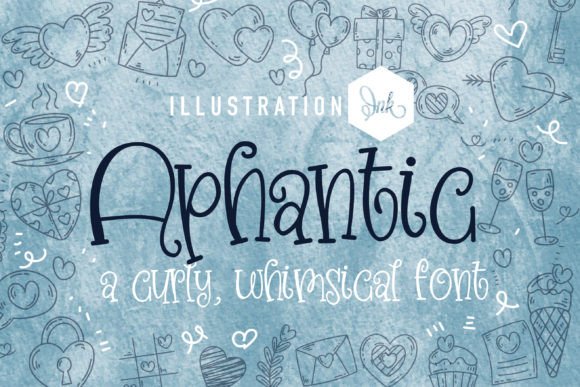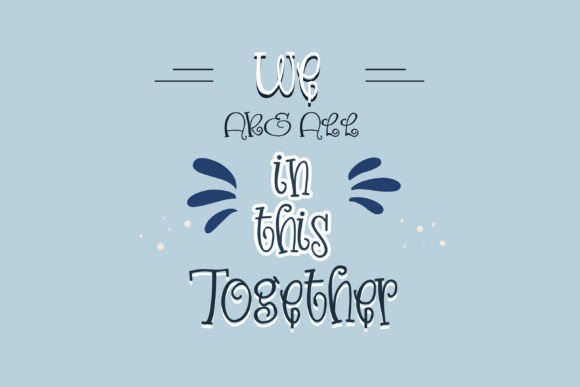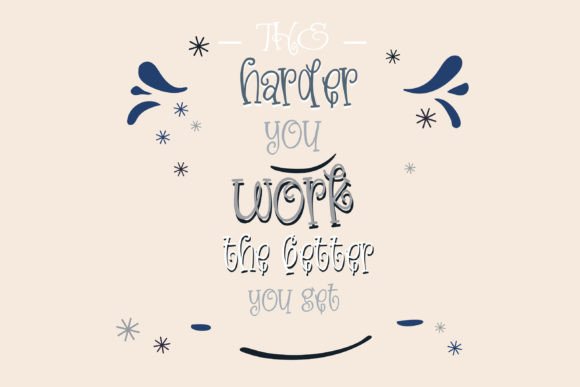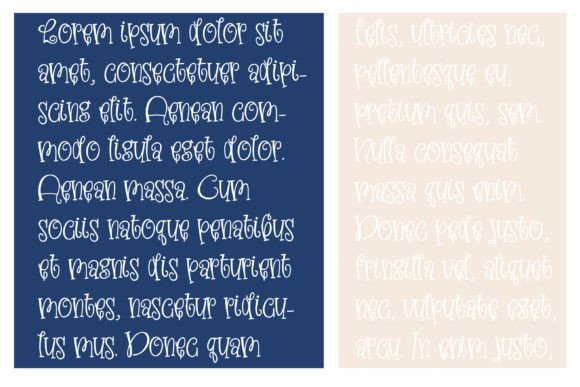
Aphantic Font
About the Aphantic Font
Welcome to the world of Aphantic Font, a typeface that will inspire your next great project. This hand-crafted serif is a fun and whimsical font with squat lettering and a few curls throughout.
Aphantic’s playful personality makes it ideal for headlines, short text blocks on packaging, and branding elements needing a touch of whimsy. It works well for invitations and greeting cards, reinforcing a fun, approachable feel. However, its unique letterforms and slightly irregular spacing make it unsuitable for body text or UI elements requiring high readability.
Consider pairing Aphantic with a clean sans-serif like Open Sans for a balanced contrast, or a more geometric sans-serif for a modern feel. A simple serif like Lora could also create a classic yet playful combination. Avoid pairing it with other highly decorative or script fonts, as this could create visual clutter.
Its overall aesthetic is best described as friendly and approachable, perfect for brands targeting a young, playful audience or projects emphasizing lightheartedness and charm.
Aphantic Font Usage Examples
Aphantic Font Example